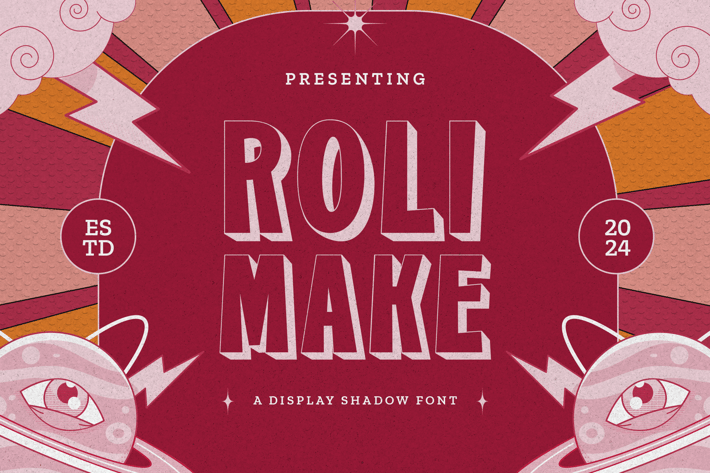
Rolimake - Shadow Display Font
Rolimake is a stunning display shadow font that merges boldness with artistic flair. Its distinctive shadow effect adds depth and drama, making it perfect for eye-catching headlines, posters, and creative branding. With a playful yet sophisticated style, Rolimake brings a unique character to any design, ensuring your message stands out with clarity and impact. This versatile typeface is ideal for both print and digital media, infusing your projects with a modern aesthetic that captivates and engages your audience.
– Lowercase
– Ligature
– Multilingual Support